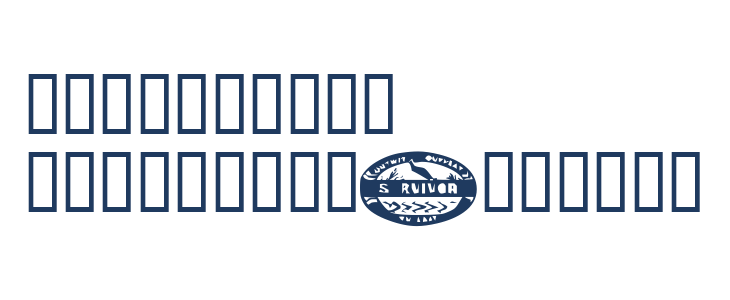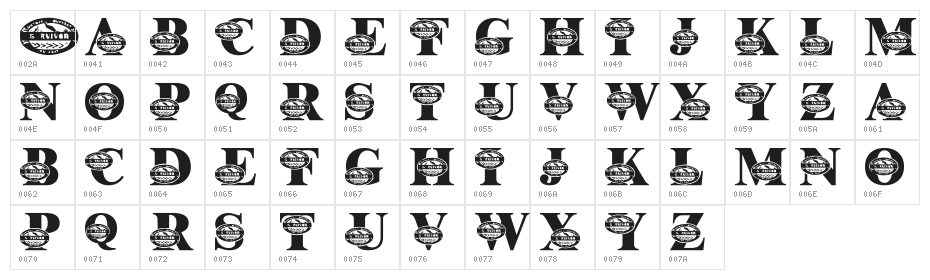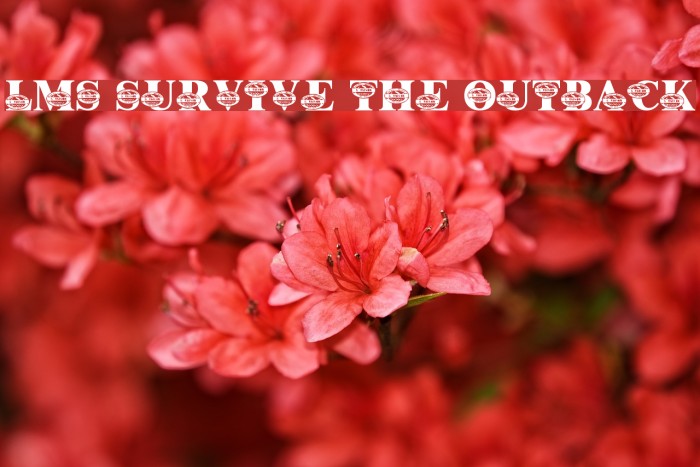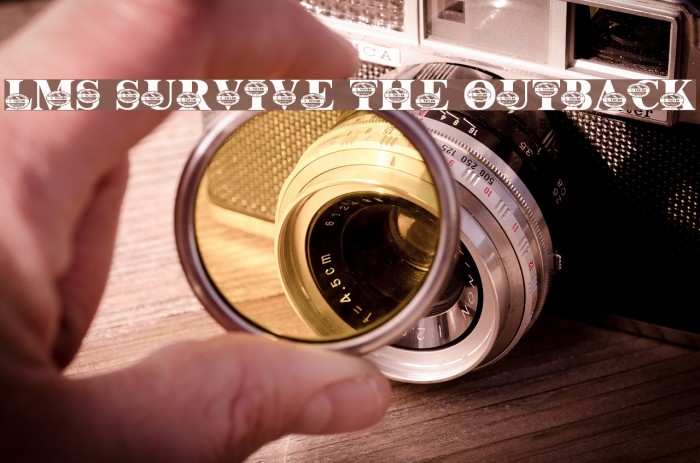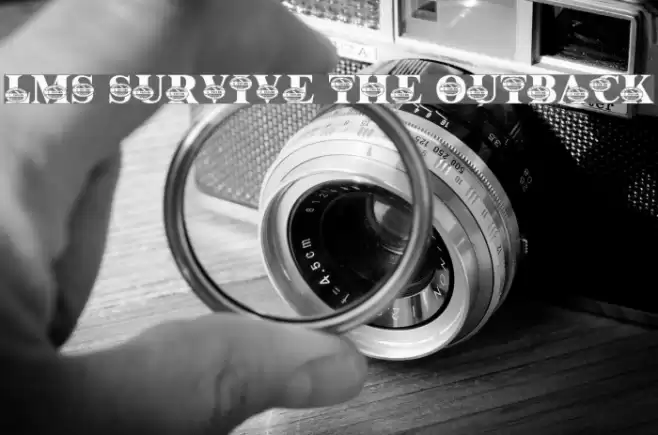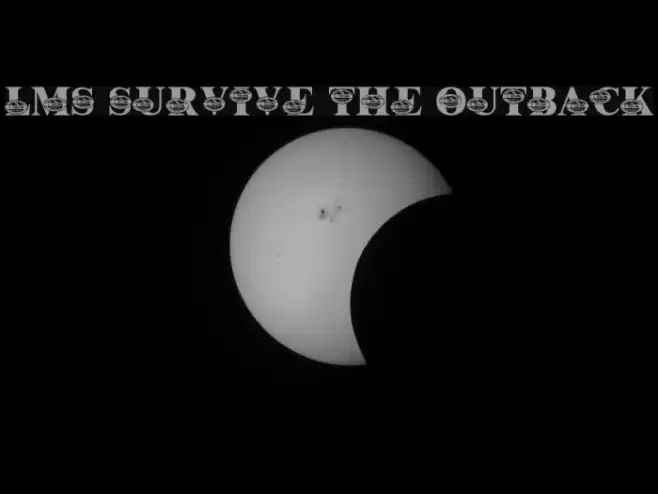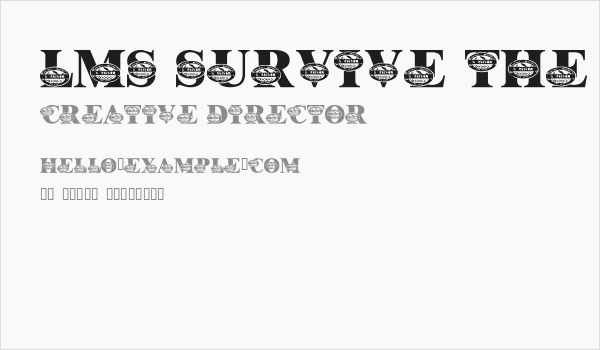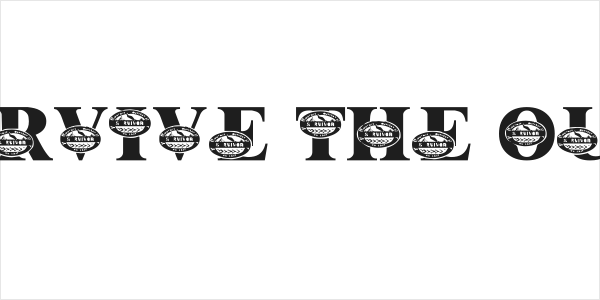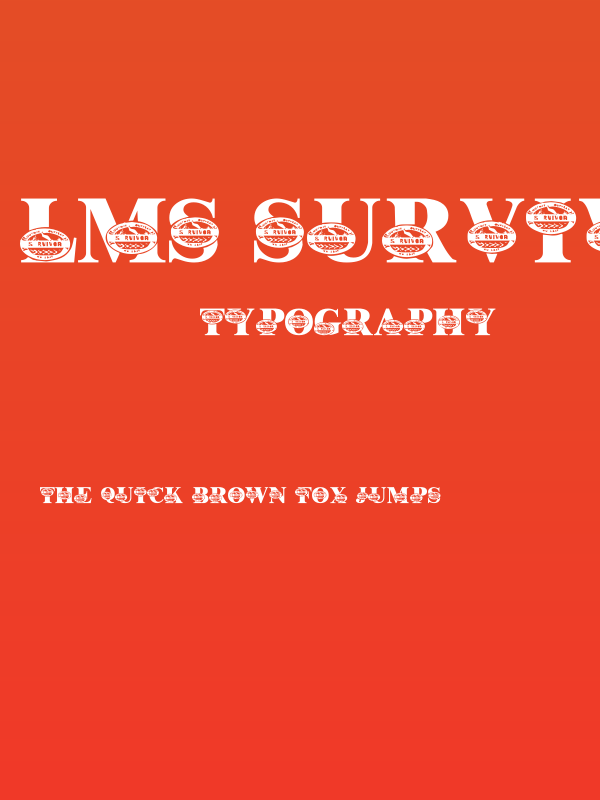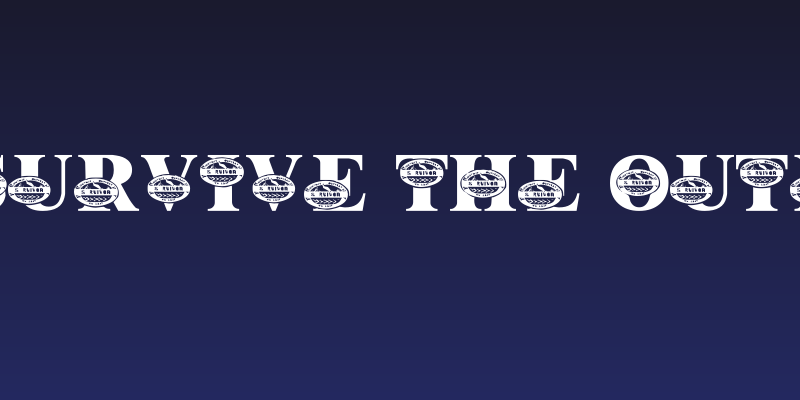
LMS Survive The Outback Font
LMS Survive The Outback Description
This font features a bold and striking design with a unique decorative element. Each character is adorned with an intricate pattern that resembles traditional motifs, giving it a distinct and artistic flair. The letters are robust and have a strong presence, making them ideal for attention-grabbing designs. The overall aesthetic is both modern and reminiscent of cultural heritage, making it versatile for various creative projects. The font's boldness and decorative style make it suitable for headlines, posters, and branding that require a touch of uniqueness and cultural depth.
Overall StyleModern, Decorative
Proposed ProjectsPerfect for cultural event posters, unique branding, and artistic headlines.